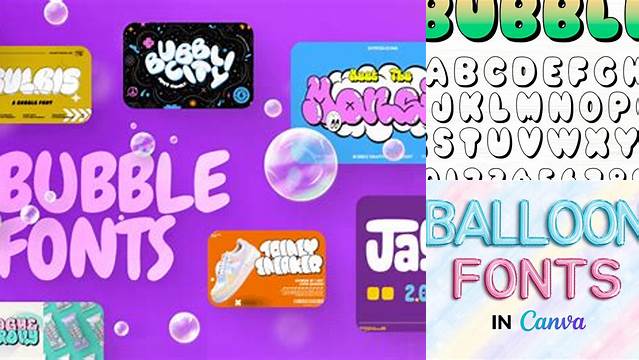
Best Bubble Fonts: Playful Typefaces For Fun Designs
Hey guys! Are you looking to add a playful and whimsical touch to your designs? Look no further than bubble fonts! These fonts are super versatile and can bring a fun, lighthearted vibe to all sorts of projects. From posters and invitations to logos and social media graphics, bubble fonts are a fantastic way to make your text pop. In this comprehensive guide, we'll dive into some of the best bubble fonts out there, how to use them, and where to find them. So, let’s jump right in and explore the bubbly world of fonts!
What are Bubble Fonts?
Bubble fonts, also sometimes called cartoon fonts or balloon fonts, are characterized by their rounded, soft, and inflated letterforms. Imagine the shape of a bubble – that’s the aesthetic these fonts aim to capture! The letters often appear puffy and three-dimensional, giving them a playful and approachable feel. Think back to childhood cartoons and comic books; that's the kind of visual impact we're talking about. Bubble fonts stand out from more traditional typefaces with their jovial and informal style. They're not your go-to for serious, corporate documents, but they are perfect for designs that need a touch of fun and whimsy.
History and Evolution of Bubble Fonts
The history of bubble fonts is closely tied to the evolution of cartooning and comic book design. In the early days of comic strips, hand-lettered text was common, and artists often used rounded, bold lettering to make the words stand out. Over time, this style was formalized into various typefaces, each with its unique charm and personality. As technology advanced, digital typography made it easier for designers to create and distribute bubble fonts, leading to an explosion of creativity in this font category. Today, you can find bubble fonts inspired by classic cartoons, graffiti art, and even contemporary design trends.
Key Characteristics of Bubble Fonts
To really understand what makes a bubble font tick, let's break down its key characteristics:
- Rounded Letterforms: This is the defining feature. The letters are soft, curvy, and lack sharp edges, giving them a friendly and approachable look.
- Bold Strokes: Bubble fonts typically feature thick strokes that emphasize the inflated, three-dimensional appearance.
- Playful Shapes: Many bubble fonts incorporate playful shapes and exaggerated proportions, adding to their whimsical nature.
- Informal Style: They are inherently casual and informal, making them ideal for designs that don’t need to be overly serious.
- Versatility: Despite their playful nature, bubble fonts can be surprisingly versatile, fitting into a range of design contexts from children's books to promotional materials.
Understanding these characteristics will help you identify and select the perfect bubble font for your project. Now, let's dive into some specific examples!
Top Bubble Fonts for Your Projects
Choosing the right font can make or break a design, and when it comes to bubble fonts, the options are plentiful. To help you narrow down your choices, let's explore some of the top bubble fonts available today. We'll look at a range of styles, from classic cartoonish fonts to more modern and unique interpretations. Whether you're working on a children's book, a party invitation, or a fun logo, there's a bubble font out there that's perfect for your needs.
Popular Bubble Font Choices
- Bubblegum Sans: This font is a classic choice for its rounded, friendly appearance. It’s highly legible and works well in various sizes, making it suitable for both headlines and body text. Bubblegum Sans has a timeless appeal that fits perfectly in children’s books, greeting cards, and fun branding materials.
- Cartoonist Hand: If you’re aiming for a more hand-drawn, authentic look, Cartoonist Hand is a fantastic option. It mimics the look of hand-lettered text, adding a personal touch to your designs. This font is excellent for comics, posters, and anything that needs a playful, informal vibe.
- Komika Axis: Komika Axis is a modern take on the bubble font, with a slightly more geometric and structured appearance. It’s clean and readable, making it a great choice for web design, mobile apps, and other digital applications. Its contemporary feel sets it apart from more traditional bubble fonts.
- Porky's: Inspired by classic cartoon lettering, Porky’s is bold, chunky, and full of personality. It’s perfect for headlines, logos, and anything that needs to grab attention. The font’s retro charm makes it a standout option for vintage-inspired designs.
- Balloonist: As the name suggests, Balloonist has a light, airy feel, resembling inflated balloons. It’s whimsical and playful, ideal for party invitations, children’s birthday cards, and other festive projects. Its cheerful aesthetic makes it a go-to for celebrations.
Free vs. Premium Bubble Fonts
When selecting bubble fonts, you'll encounter both free and premium options. Free fonts can be a great resource, especially if you're on a budget or just starting out. Websites like Google Fonts, DaFont, and FontSpace offer a wide variety of free bubble fonts. However, keep in mind that free fonts may have limitations in terms of licensing, character sets, or overall quality. Premium fonts, on the other hand, often come with more extensive features, better design quality, and broader licensing options for commercial use. Sites like MyFonts, Adobe Fonts, and Creative Market are excellent places to find high-quality premium bubble fonts.
Where to Find Bubble Fonts
- Google Fonts: Offers a selection of free, open-source bubble fonts that are easy to use and integrate into web projects.
- DaFont: A vast collection of user-submitted fonts, including many free bubble fonts with varying styles and quality.
- FontSpace: Another popular source for free fonts, with a user-friendly interface and a wide range of bubble font options.
- MyFonts: A leading marketplace for premium fonts, offering a curated selection of high-quality bubble fonts from professional designers.
- Adobe Fonts: Included with Adobe Creative Cloud subscriptions, this library provides access to a wide range of premium fonts, including many unique bubble styles.
- Creative Market: A marketplace for design assets, including fonts, with a selection of both free and premium bubble fonts.
Exploring these resources will help you discover the perfect bubble font to bring your creative vision to life.
How to Use Bubble Fonts Effectively
Alright, guys, now that we've explored some fantastic bubble fonts and where to find them, let's talk about how to use them effectively. Using bubble fonts effectively isn't just about slapping them onto any project; it's about understanding the context and using them in a way that enhances your overall design. These fonts have a distinct personality, and knowing how to leverage that personality is key to creating visually appealing and impactful designs. So, let's dive into some tips and best practices for using bubble fonts in your projects.
Best Practices for Using Bubble Fonts
- Consider the Context: Bubble fonts are inherently playful and informal, so they're best suited for projects that align with this aesthetic. Think children's books, party invitations, fun logos, and social media graphics. Avoid using them in formal or serious contexts, such as legal documents or corporate reports, where they might appear out of place.
- Pair Wisely: The fonts you pair with your bubble font can significantly impact the overall look and feel of your design. Generally, it's best to pair a bubble font with a simpler, cleaner font for body text to avoid overwhelming the reader. San-serif fonts like Open Sans or Lato can work well, providing a nice contrast to the playful bubble font.
- Use Sparingly: Bubble fonts are attention-grabbing, but using them too much can make your design look cluttered and overwhelming. Use them strategically for headlines, titles, or key phrases, and let the rest of your design elements breathe. A little bit of bubble font can go a long way.
- Think About Color: Color plays a crucial role in the effectiveness of bubble fonts. Bright, vibrant colors often enhance the playful nature of these fonts, making them pop even more. Consider using contrasting colors to make your text stand out against the background. However, avoid using too many colors, as this can create a chaotic look. Two or three well-chosen colors are usually sufficient.
- Adjust Spacing and Size: Pay attention to the spacing and size of your bubble font. Because these fonts are often bold and chunky, they can sometimes appear cramped if the spacing is too tight. Increase the letter spacing (tracking) and line height (leading) to improve readability. Also, consider the size of your font relative to other elements in your design. A larger font size will draw more attention, while a smaller size can create a more subtle effect.
- Overusing Bubble Fonts: As mentioned earlier, using too many bubble fonts in a single design can be overwhelming. Stick to one bubble font for headlines or titles and use a simpler font for the rest of your text.
- Poor Font Pairing: Pairing a bubble font with another equally bold or playful font can create visual chaos. Choose a simple, clean font for body text to ensure readability and balance.
- Ignoring Readability: While bubble fonts are fun and eye-catching, readability should always be a priority. Avoid using bubble fonts in very small sizes or in long blocks of text, as they can be difficult to read. Ensure there is enough contrast between the text and the background to enhance readability.
- Using Inappropriate Colors: Color choices can make or break a design. Avoid using colors that clash or make the text difficult to read. Stick to a limited color palette and ensure there is sufficient contrast between the text and the background.
- Neglecting Spacing: Proper spacing is crucial for readability. Tight spacing can make bubble fonts look cramped and cluttered. Adjust the letter spacing and line height to create a more open and inviting look.
By following these best practices and avoiding common mistakes, you can effectively use bubble fonts to create fun, engaging, and visually appealing designs.
Project Ideas Using Bubble Fonts
So, you're armed with the knowledge of what bubble fonts are, the best ones to use, and how to use them effectively. Now, let's get those creative juices flowing! Project ideas using bubble fonts are virtually limitless, but to give you a little nudge, let's explore some specific scenarios where bubble fonts can truly shine. Whether you're designing for a personal project, a school assignment, or a professional endeavor, these fonts can add a unique and playful touch.
Creative Ways to Use Bubble Fonts
- Children's Books: This is a no-brainer! Bubble fonts are a natural fit for children's books, where their playful and friendly appearance can captivate young readers. Use them for titles, chapter headings, and even speech bubbles within the illustrations. A font like Bubblegum Sans or Cartoonist Hand would be perfect for this.
- Party Invitations: Planning a birthday bash, a baby shower, or any other celebration? Bubble fonts can add a festive touch to your invitations. Use bright colors and bold typography to create an invitation that’s sure to get your guests excited. Balloonist or Porky's would be excellent choices for a party theme.
- Social Media Graphics: In the crowded world of social media, standing out is key. Bubble fonts can help your posts grab attention and convey a fun, approachable vibe. Use them for promotional graphics, announcements, or even just to add some personality to your feed. Komika Axis could be a great option for a modern, eye-catching social media presence.
- Logos and Branding: While bubble fonts might not be suitable for every brand, they can be a fantastic choice for businesses that want to project a playful, youthful image. Think toy stores, children's clothing brands, or even creative agencies. A well-designed logo using a bubble font can be memorable and instantly recognizable.
- Educational Materials: Make learning fun with bubble fonts! Use them in worksheets, posters, and other educational materials to engage students and make the content more approachable. The friendly nature of bubble fonts can help create a positive learning environment.
- Greeting Cards: Whether it's a birthday card, a thank-you note, or a holiday greeting, bubble fonts can add a personal and cheerful touch. Combine them with colorful illustrations and heartfelt messages to create cards that are sure to bring a smile.
- Posters and Flyers: Need to promote an event or spread a message? Bubble fonts can help your posters and flyers stand out from the crowd. Use them for headlines and key information to grab attention and make your message memorable.
Examples of Successful Projects
To further inspire you, let's look at some examples of successful projects that have used bubble fonts effectively:
- Children's Book Covers: Many popular children's books feature bubble fonts on their covers to immediately convey the playful nature of the story inside.
- Toy Store Logos: Toy stores often use bubble fonts in their logos to create a fun and inviting brand image that appeals to children and parents alike.
- Party Supply Websites: Websites selling party supplies frequently use bubble fonts in their headers and graphics to create a festive and celebratory atmosphere.
- Educational Apps for Kids: Many educational apps designed for young children incorporate bubble fonts into their user interfaces to make learning more engaging and enjoyable.
By exploring these project ideas and examples, you can start to see the versatility of bubble fonts and how they can be used to add a touch of fun and whimsy to a wide range of designs.
Conclusion: Embrace the Bubbly Fun!
So, guys, we've reached the end of our bubbly journey through the world of bubble fonts! We've covered everything from what bubble fonts are and their key characteristics to the best options available, how to use them effectively, and project ideas to get you started. Embrace the bubbly fun that these fonts offer and you'll see how they can transform your designs from ordinary to extraordinary. Bubble fonts are a fantastic tool for adding a playful, lighthearted touch to your projects, making them more engaging and memorable.
The key takeaway here is that bubble fonts are all about fun and personality. They're perfect for projects that need a touch of whimsy and are especially well-suited for designs aimed at children or those that need a friendly, approachable vibe. However, like any design element, they should be used thoughtfully and strategically. Consider the context, pair them wisely with other fonts, and don't overdo it. A little bit of bubble font can go a long way in making your design pop.
Whether you're designing a children's book, a party invitation, a logo, or social media graphics, there's a bubble font out there that's perfect for your needs. Explore the various options available, experiment with different styles, and don't be afraid to get creative. Remember, design is all about expressing your unique vision, and bubble fonts can be a powerful tool in your creative arsenal.
So, go ahead, dive into the bubbly world of fonts, and let your creativity shine! With the right bubble font, you can add a touch of magic to any project and make it truly unforgettable. Happy designing!